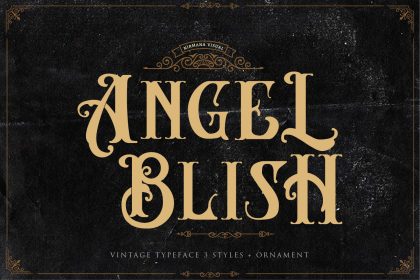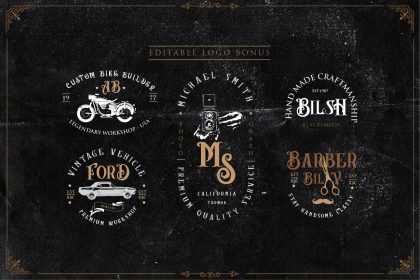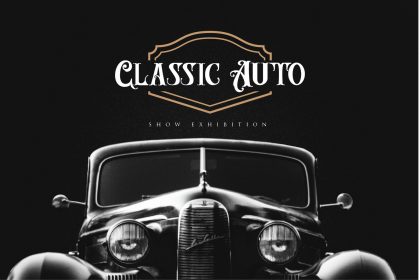
Angel Blish Typeface
a Classy, Contemporary inspired by Victorian Era.
Angel Blish offers beautiful typographic harmony for a diversity of design projects, including logos & branding, social media posts, advertisements & product designs.